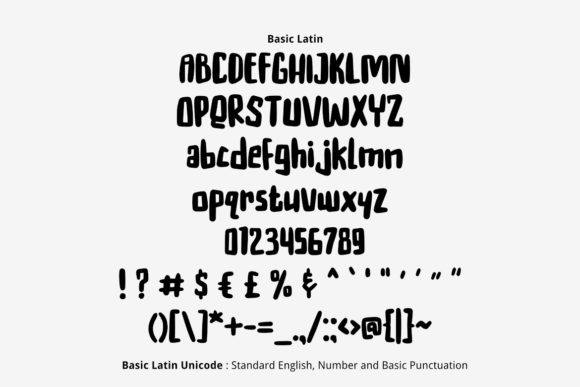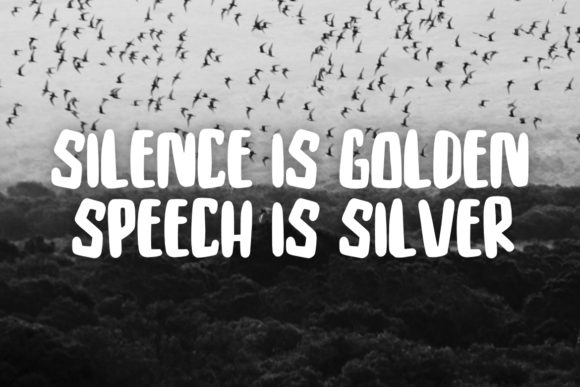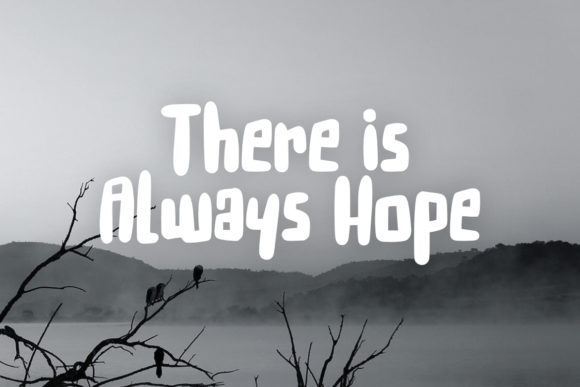
Discover the Charm of Hakuna Font: A Bold Display Font for Creative Projects
In the world of typography, a good font can make all the difference in the success of a design project. For designers and crafters looking for a bold and versatile font, Hakuna Font is an excellent choice. This handcrafted display font is designed to be a true favorite, offering a casual charm that makes it appear wonderfully down-to-earth, readable, and incredibly versatile.
The Characteristics of Hakuna Font
Hakuna Font is a bold display font that boasts a unique personality. Its carefully crafted design makes it perfect for a variety of creative projects, from signage and posters to digital displays and branding materials. The font’s casual charm gives it a friendly and approachable feel, making it an excellent choice for designers who want to add a touch of warmth and personality to their work.
One of the standout features of Hakuna Font is its readability. Despite its bold nature, the font is incredibly easy to read, even in smaller sizes or on busy backgrounds. This makes it a versatile font that can be used in a range of contexts, from headlines and titles to body text and captions.
Why Choose Hakuna Font?
So why choose Hakuna Font for your next design project? Here are just a few reasons why this font stands out:
• Unique Personality: Hakuna Font has a distinct personality that sets it apart from other fonts. Its casual charm and bold nature make it perfect for designers who want to add a touch of personality to their work.
• Versatility: This font is incredibly versatile, making it suitable for a range of creative projects, from signage and posters to digital displays and branding materials.
• Readability: Despite its bold nature, Hakuna Font is incredibly easy to read, even in smaller sizes or on busy backgrounds.
• Handcrafted Design: As a handcrafted font, Hakuna Font has a unique, human touch that sets it apart from machine-generated fonts.
How to Use Hakuna Font in Your Design Projects
So how can you use Hakuna Font in your design projects? Here are a few ideas to get you started:
• Headlines and Titles: Use Hakuna Font as a headline or title font to add a touch of personality and flair to your designs.
• Signage and Posters: This font is perfect for signage and posters, where its bold nature and readability make it easy to read from a distance.
• Branding Materials: Use Hakuna Font in your branding materials, such as business cards, brochures, and letterheads, to add a touch of personality and consistency to your brand.
• Digital Displays: This font is also perfect for digital displays, such as website headers, social media graphics, and digital signage.
Tips for Getting the Most Out of Hakuna Font
Here are a few tips for getting the most out of Hakuna Font:
• Experiment with Different Sizes: Don’t be afraid to experiment with different sizes and scales to find the perfect fit for your design.
• Play with Color: Hakuna Font looks great in a range of colors, so don’t be afraid to experiment and find the perfect hue for your design.
• Pair it with Other Fonts: This font pairs well with a range of other fonts, so don’t be afraid to experiment and find the perfect combination for your design.
In conclusion, Hakuna Font is a bold and versatile display font that is perfect for designers and crafters looking to add a touch of personality and flair to their creative projects. Its casual charm, readability, and handcrafted design make it a standout font that is sure to become a true favorite.